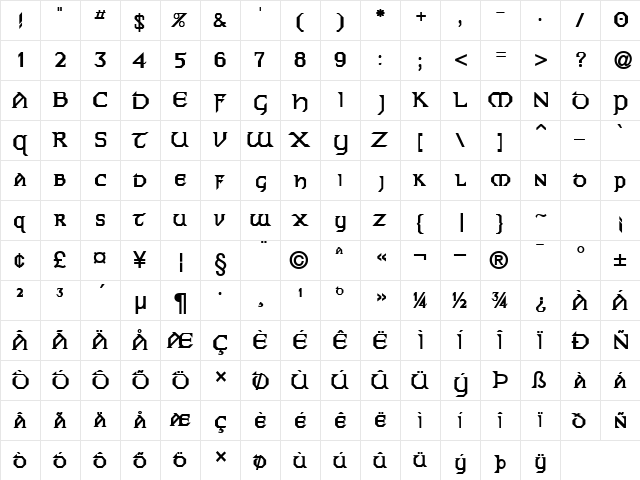
Norman Bold
Design Context for Norman Typeface
Norman is a composed and adaptable typeface that performs quietly and consistently across a wide range of design contexts. Its bold stroke weight gives it real presence on the page.